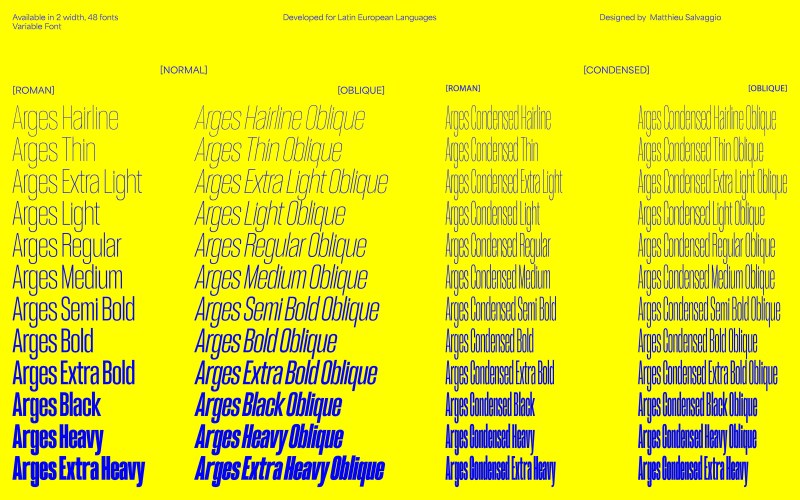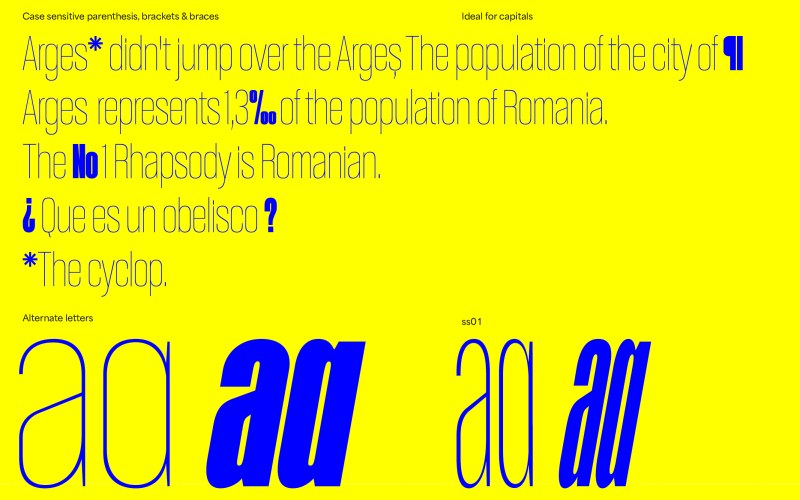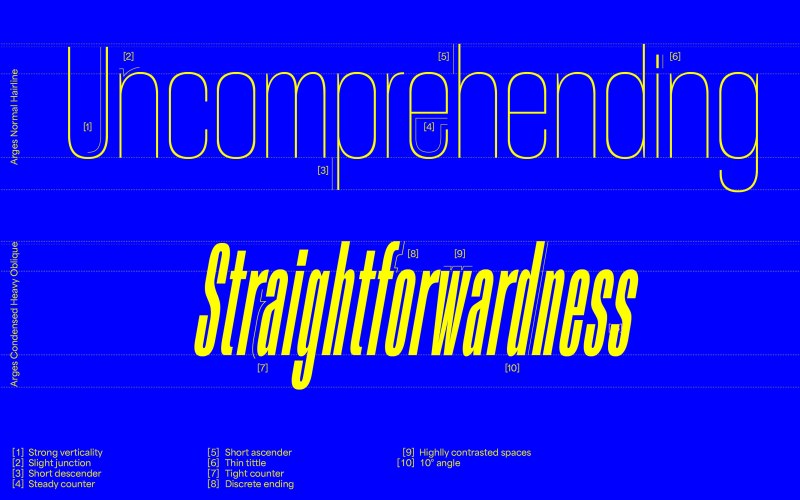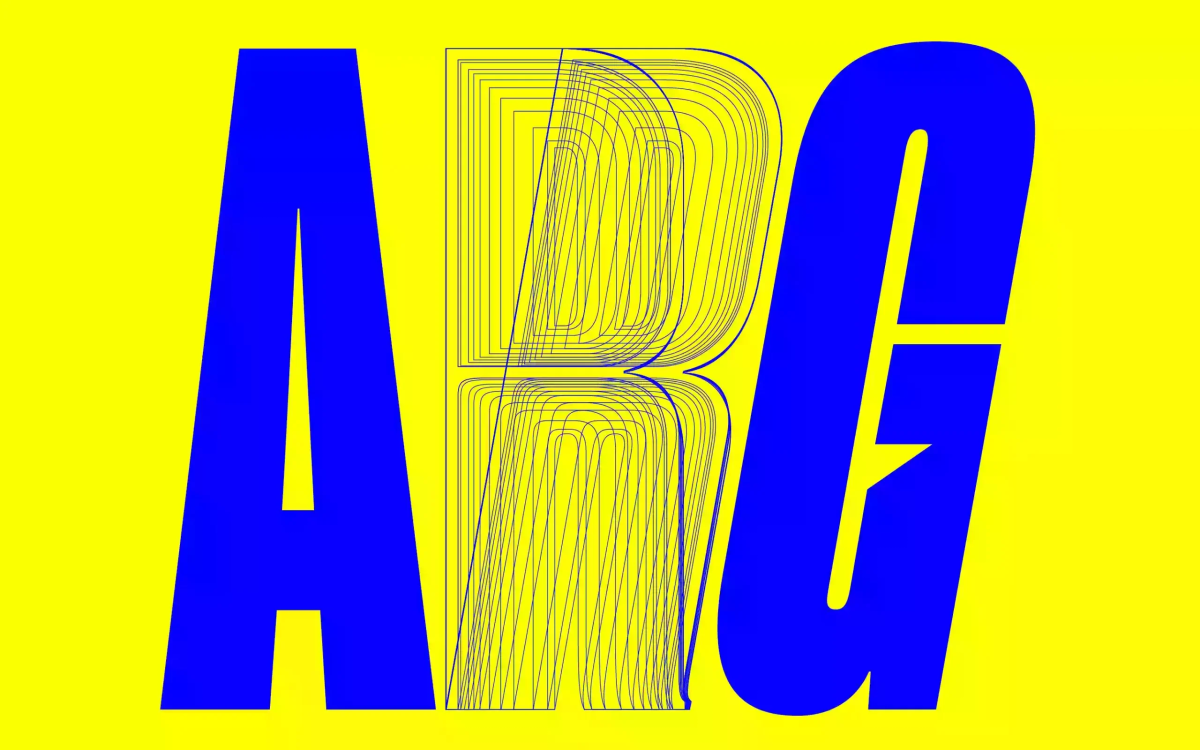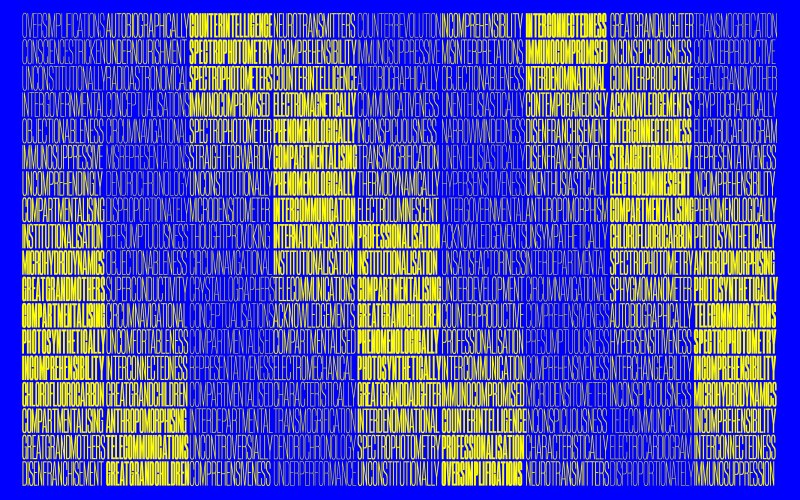
Arges Font
Arges was Inspired by the famous Cyclope who helped forge Zeus’ thunder weapon. Completely rethought and fully redesigned during 2018–2019, Arges became a super family o…
Arges was Inspired by the famous Cyclope who helped forge Zeus’ thunder weapon. Completely rethought and fully redesigned during 2018–2019, Arges became a super family of 11 weights+matching obliques & two styles (Normal/Condensed). Originally thought to be a heavy font-tool meant for display and headlines it was completely revamped into a typeface family containing several useful weights for various text sizes and layouts.
Arges Font stays legible at small sizes, which makes it a strong choice for navigation, buttons and dashboards in web design and app interfaces.
Clean sans serifs like Arges Font are the default language of SaaS, fintech and product branding.
Arges Font is a Sans Serif Fonts typeface tagged Condensed, Display, Headlines, Sans Serif. It works well for headlines, logos, posters, social media graphics and branding projects that need a distinctive sans serif fonts look.